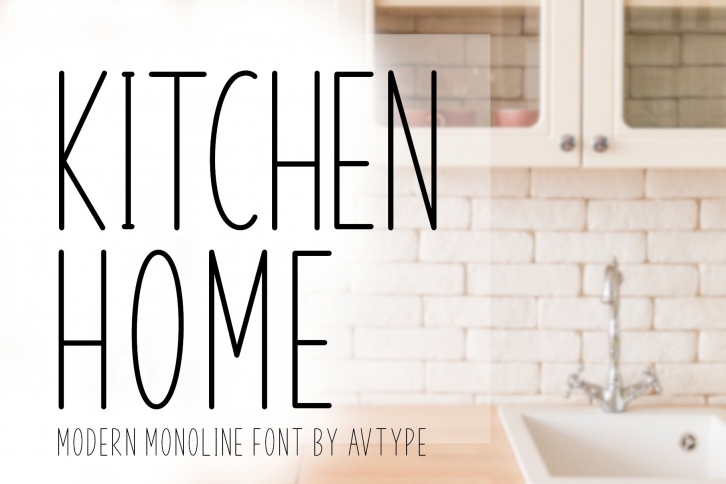
Kitchen Home is a great font that was designed by AV TYPE. Imagine the amount of combinations you can create using this font! The archive is 10.64 MB and it was released on September 22, 2020. Kitchen Home looks beautiful on wedding invitations, greeting cards, logos, posters, labels, t-shirt designs, logos, business cards and is perfect for use in ink or watercolor works, fashion, magazines, packaging and food menus, children's books and more!